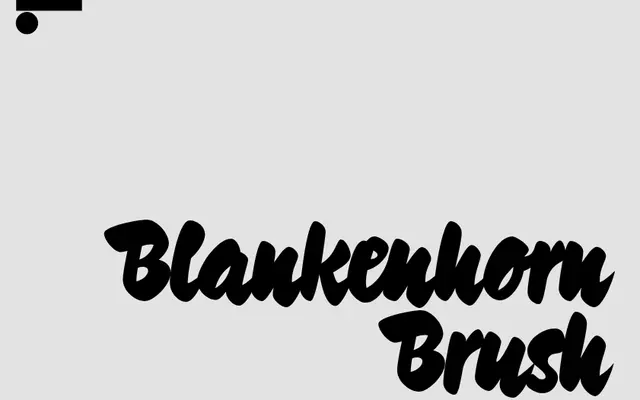
LL Blankenhorn
A three-style script family rooted in the post-war German hand-lettering of Fritz Blankenhorn, digitised by calligrapher Tobias-David Albert with over 5,000 contextual glyph combinations.
Blankenhorn references the distinctive brush-painted lettering of Fritz Blankenhorn (1921–2011), in-house designer at Deutscher Bücherbund, whose hand-lettering appeared on Max Frisch's Homo Faber in 1957 and became a signature style for the bestselling novels of Johannes Mario Simmel. Designer Tobias-David Albert identified three stylistic threads in Blankenhorn's book cover work and built a contextual system of more than 5,000 ligatures and alternate glyph combinations so that letters adjust their shape and position relative to their neighbours, producing text that reads as genuinely composed by hand. The family covers the full Latin character set with careful optimisation for 26 languages including those with complex diacritics.
A family of three script fonts emulating German post-war hand-lettering, drawing on the calligraphic brush-painted style of Fritz Blankenhorn's book cover work. The three styles (Script, Formal, Typewriter) each represent a distinct thread of that lettering tradition.
ScriptFormalTypewriter